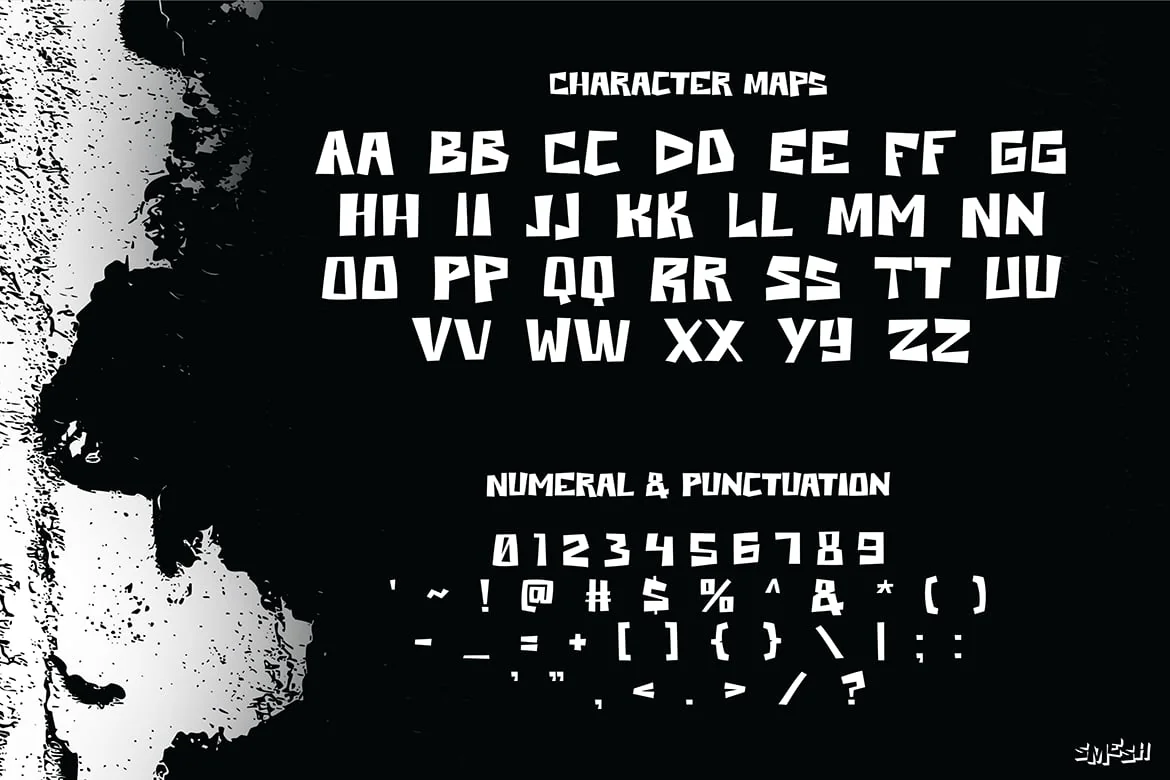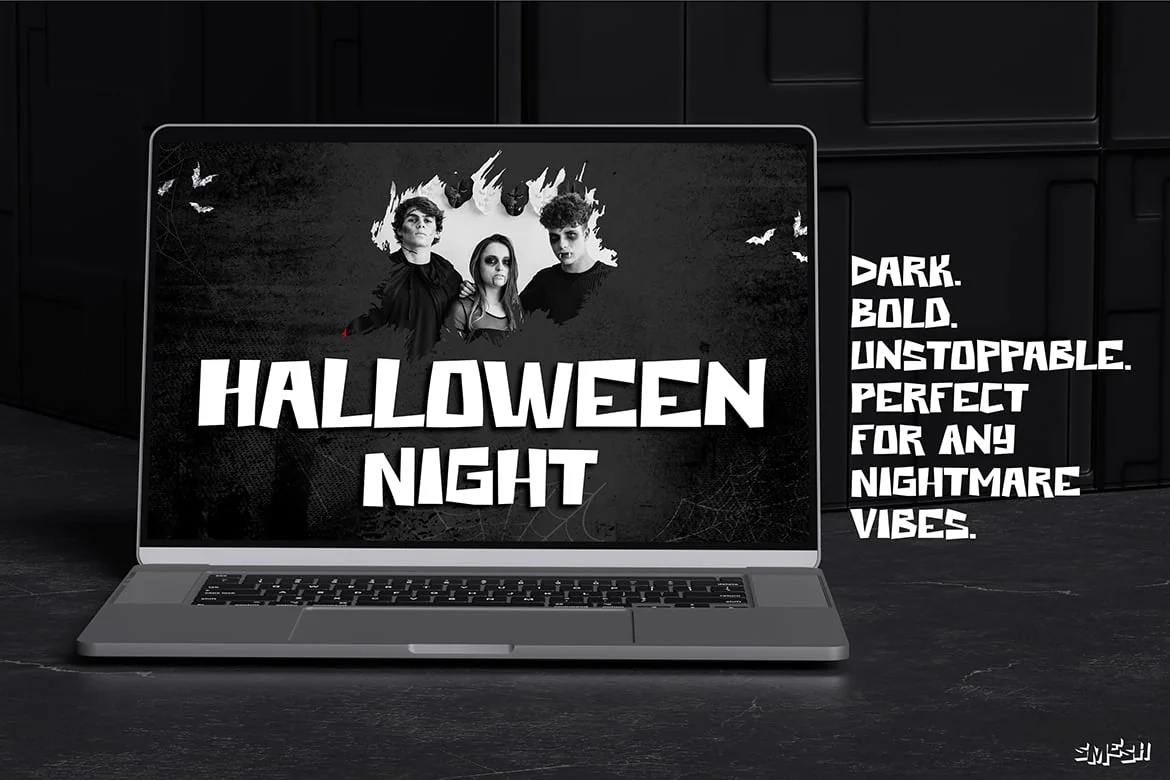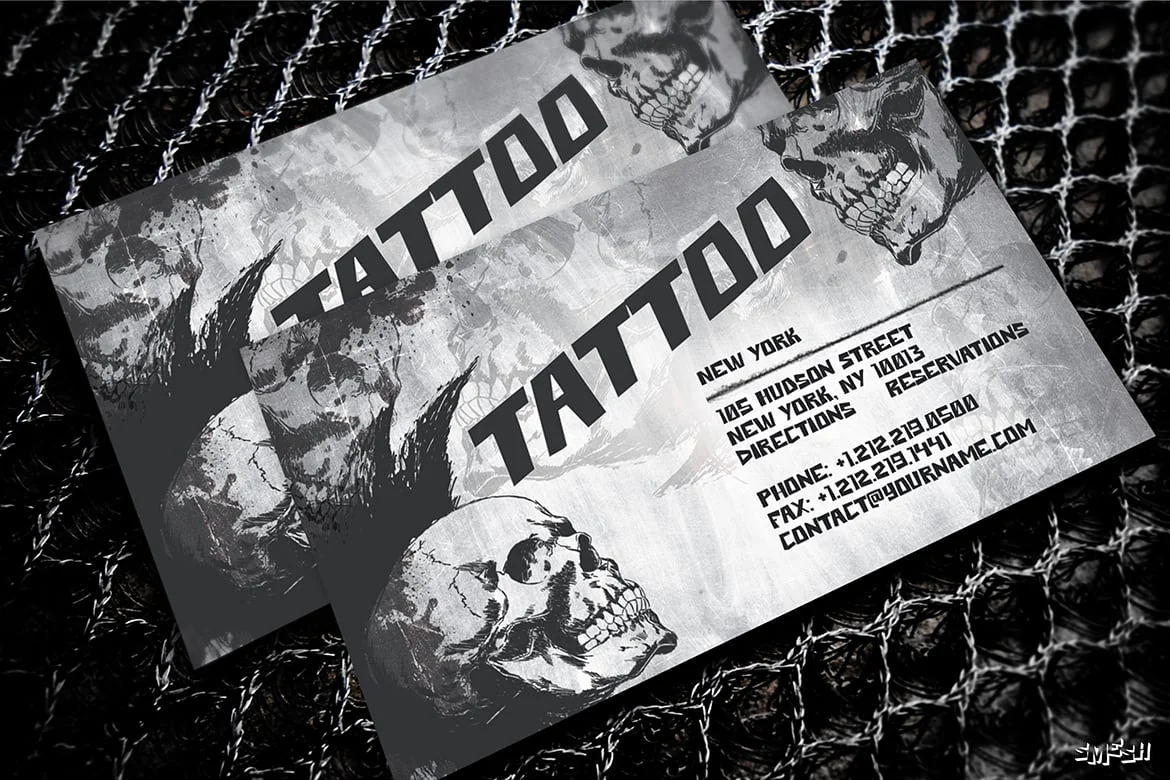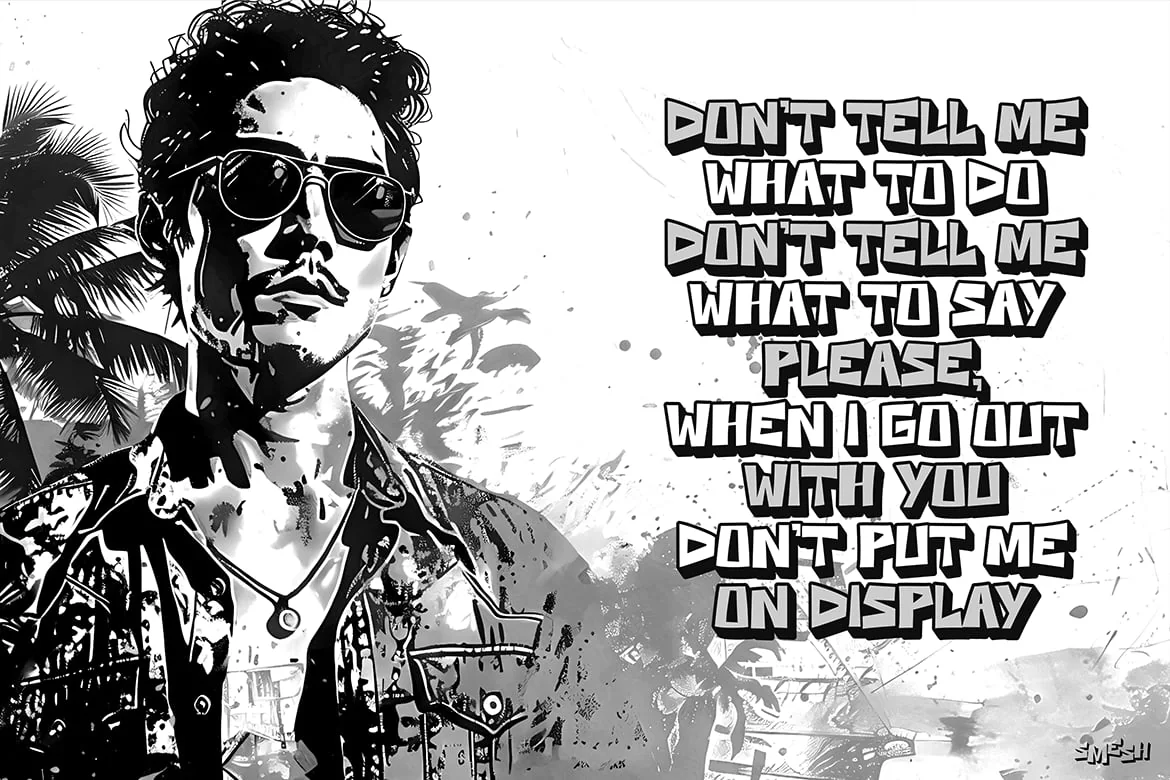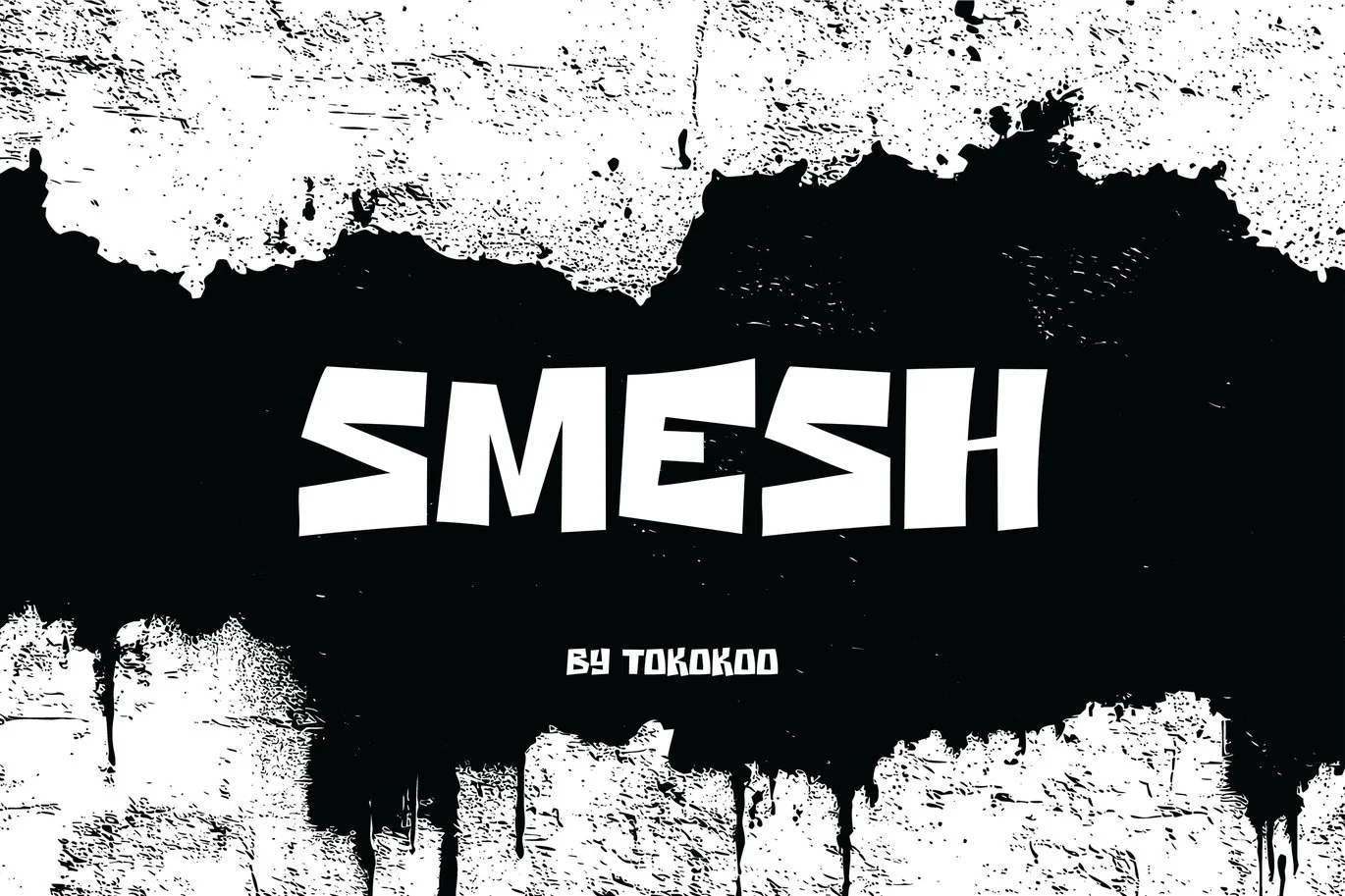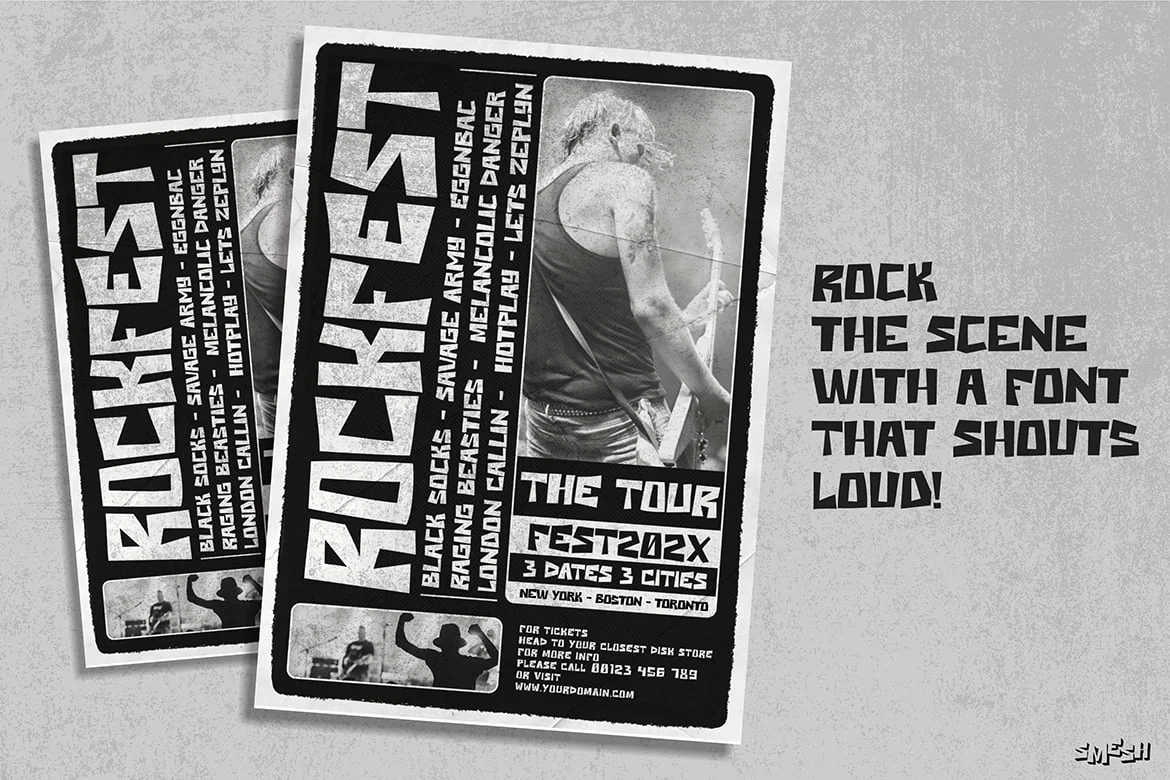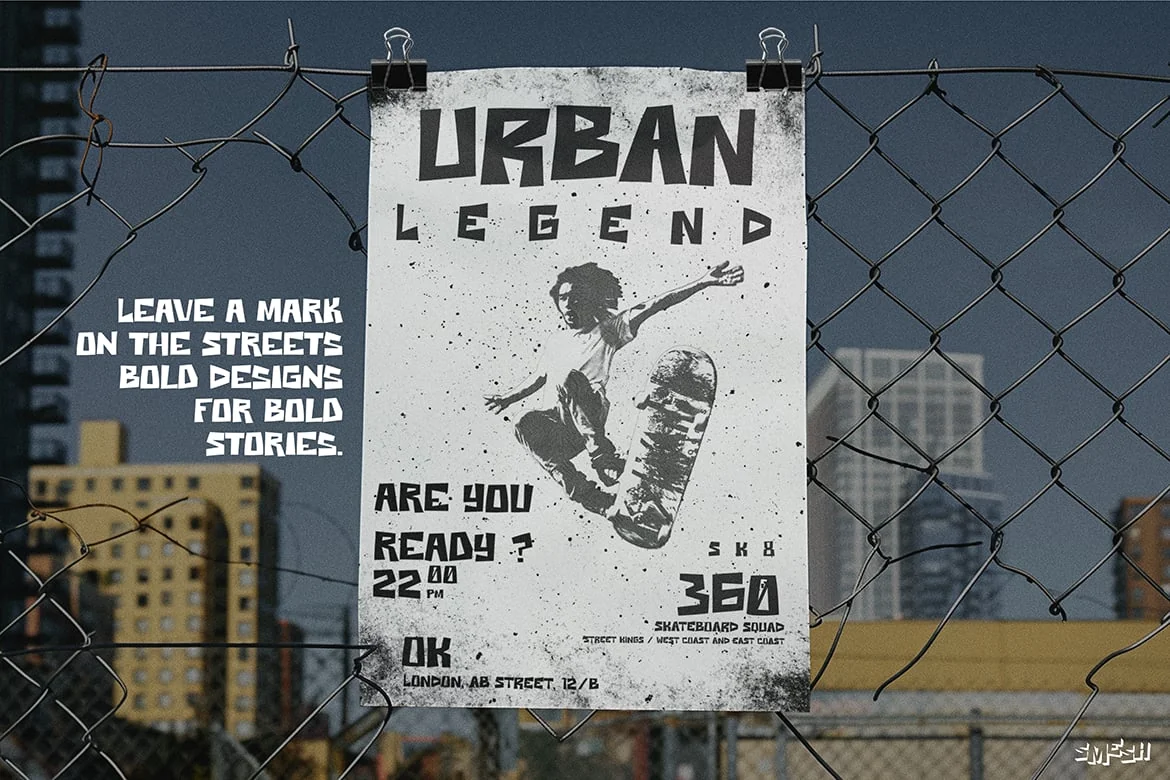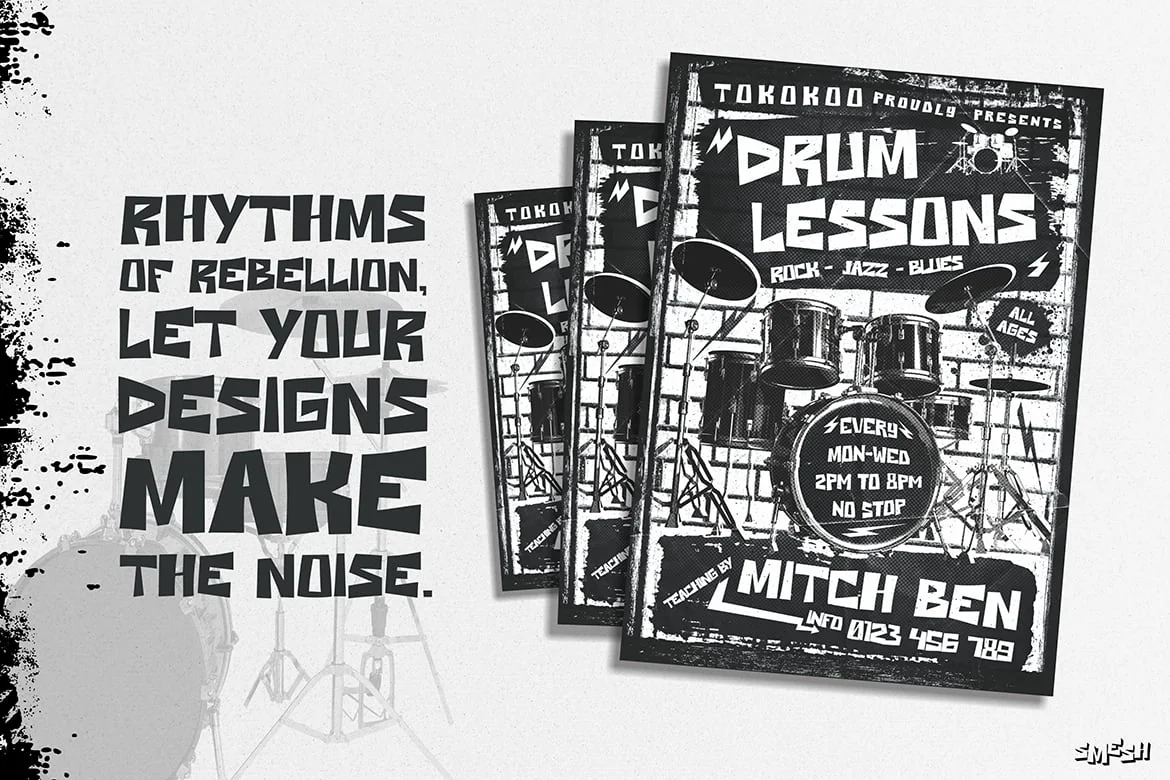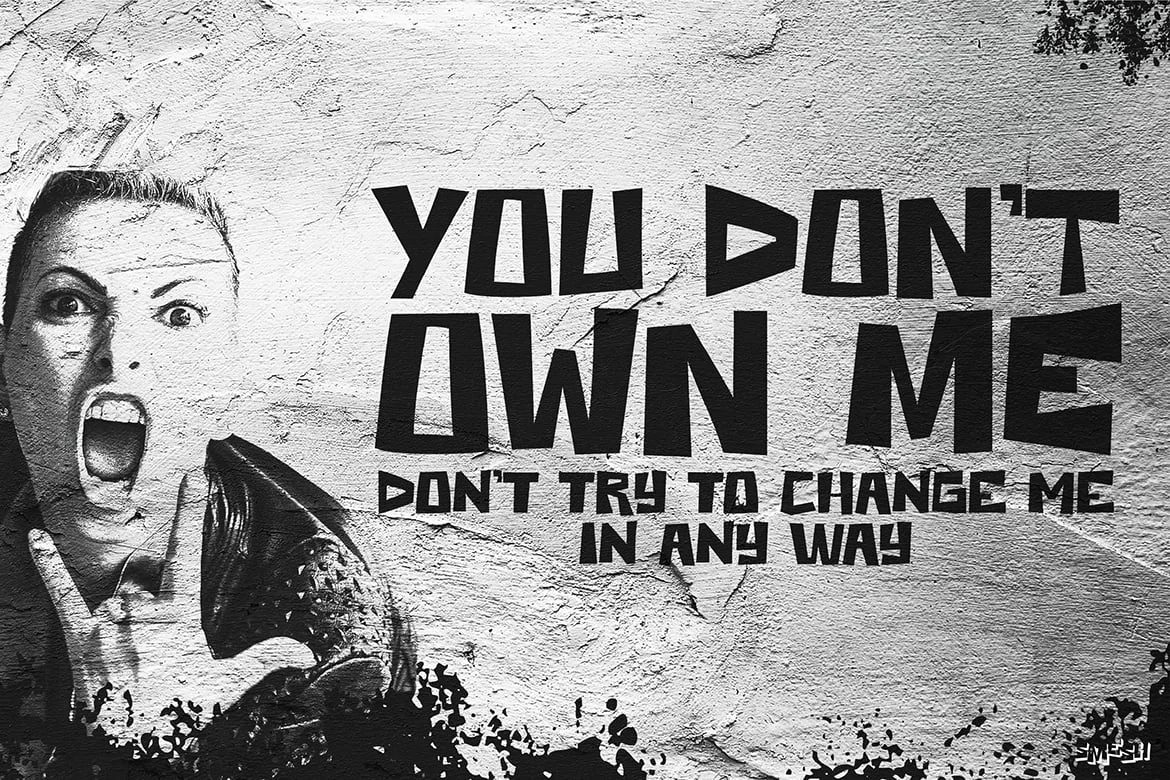
Sport Font – Smesh
SMESH is a gritty, rebellious display font that captures the essence of underground street culture and vintage punk rock. With bold, jagged edges and a raw, distressed look, SMESH exudes an attitude of defiance, making it perfect for designs that need to make a bold statement. This font is ideal for posters, album covers, tattoo designs, and urban branding, adding an authentic edge to your creative projects.
Applications:
- Event posters and concert flyers
- Streetwear and apparel branding
- Tattoo and body art designs
- Urban-themed social media graphics
- Extreme sports merchandise